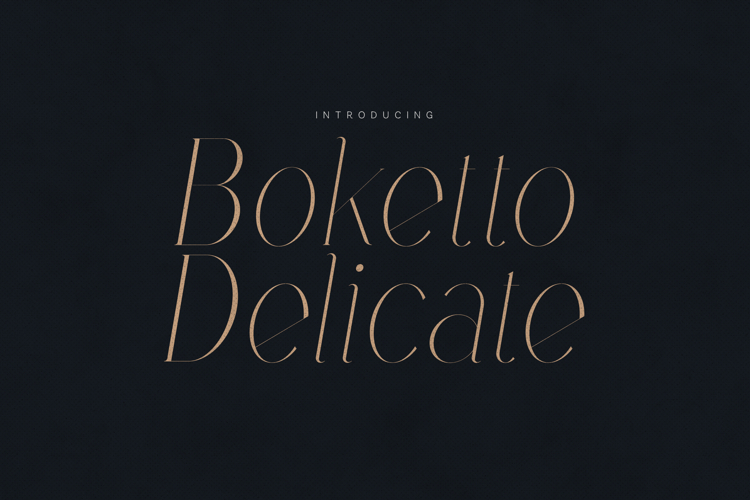
Boketto Delicate Elegant Luxury Serif Font
Boketto Delicate is a refined, high-contrast serif typeface designed for luxury branding, editorial design, and sophisticated visual identities.
With its graceful curves, soft transitions, and elegant proportions, Boketto Delicate brings a calm, poetic presence to any composition. The letterforms are crafted with subtle contrast and flowing terminals, making it perfect for fashion campaigns, beauty packaging, wedding invitations, magazines, and high-end logos.
This typeface supports multilingual characters, numerals, punctuation, and special symbols — carefully designed to maintain consistency and elegance across every glyph.
Whether used for minimal headlines or delicate body text, Boketto Delicate delivers timeless sophistication with a modern sensibility.
Luxury brands, fashion editorials, cosmetics, wedding design, boutique logos, book covers, and premium packaging.